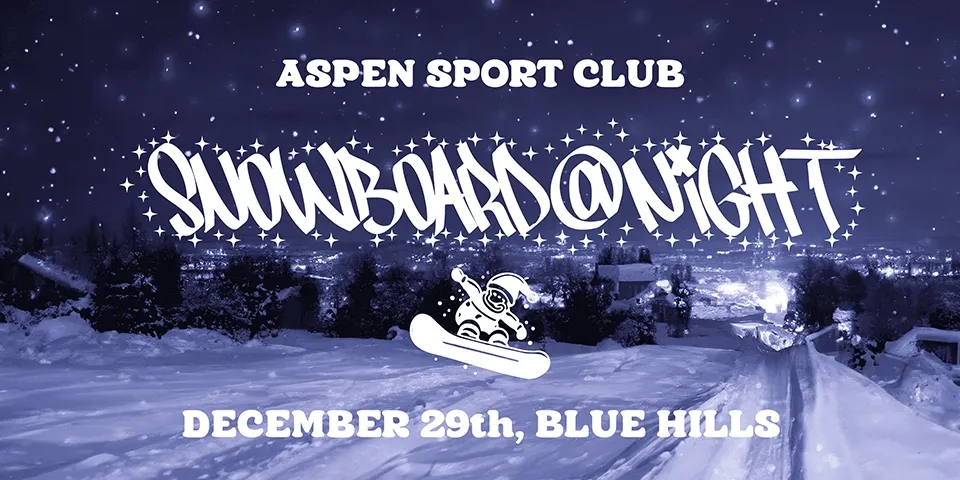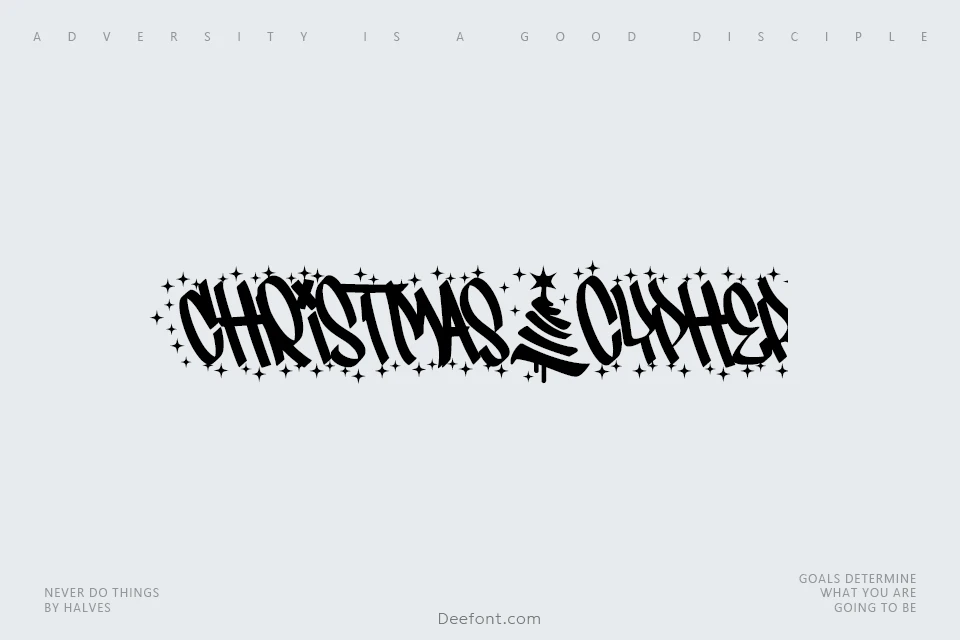
Christmas Cypher Font
Christmas Cypher Font is a festive and energetic typeface designed to capture the joyful spirit of the holiday season. With its bold, graffiti-inspired letterforms and playful decorative elements, this font brings a modern twist to traditional Christmas designs. The unique style features star accents and a whimsical tree motif, making it perfect for holiday cards, event posters, party invitations, and seasonal branding. Christmas Cypher Font stands out with its lively personality and creative flair, ensuring your holiday messages are both eye-catching and memorable. It’s an ideal choice for anyone looking to add a fun, contemporary touch to their festive projects.